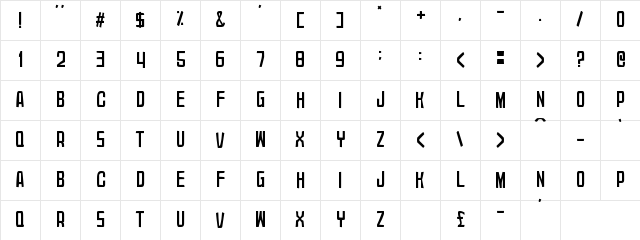
Complete Critical Role Play Normal glyph index. Displaying only characters natively supported by Critical Role Play Normal font.
Critical Role Play is a composed and adaptable typeface that performs quietly and consistently across a wide range of design contexts.